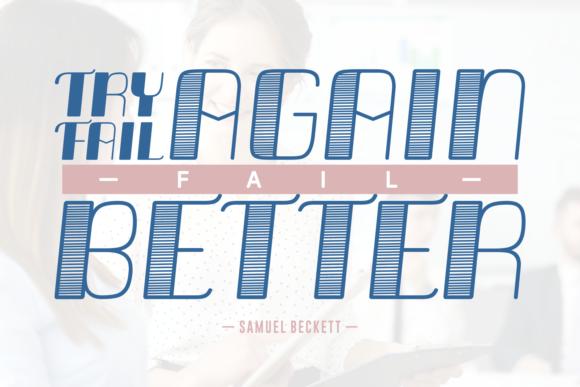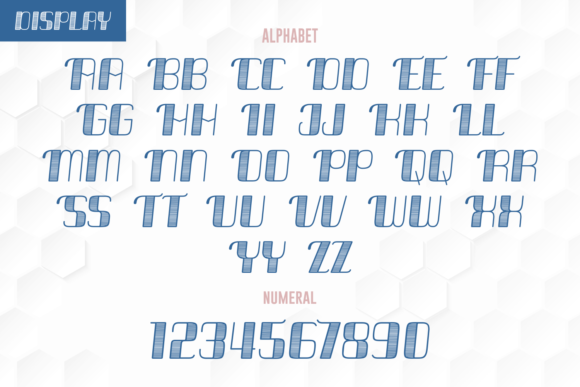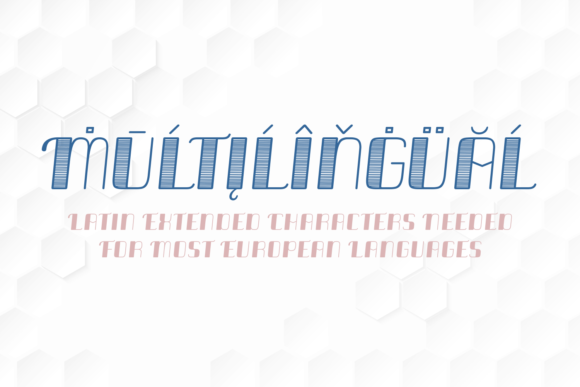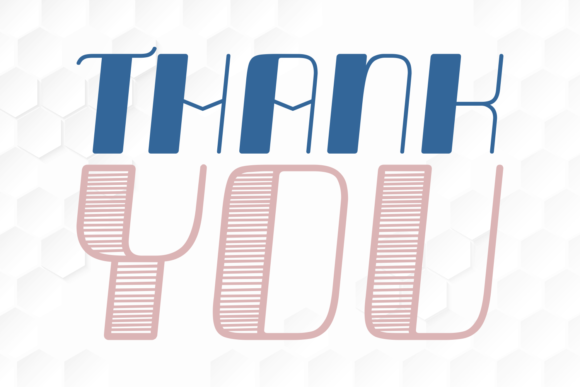
Unlock Your Creative Potential with Achieve Dreams Font
Have you ever found yourself staring at a blank canvas, waiting for inspiration to strike? The blank page syndrome is a familiar foe for many creatives. But what if I told you that the right font can be the spark that sets your imagination ablaze? Introducing Achieve Dreams Font, a modern display font designed to elevate your crafting ideas and take them to new heights.
This versatile font is perfect for adding a touch of sophistication to your projects, from handmade cards and labels to branding and marketing materials. With Achieve Dreams Font, the possibilities are endless. As a designer, you’ll appreciate the flexibility and creative freedom that this font offers, allowing you to push the boundaries of your art and achieve truly remarkable results.
Achieve Dreams Font Key Features
- Font Family: Achieve Dreams Font is a unique, high-quality font designed for various applications.
- Unique Characteristics: The Achieve Dreams Font features a modern, elegant design with a touch of sophistication, making it perfect for branding, marketing materials, and digital media.
Designer Review: Achieve Dreams Font
I’ve had the chance to work with Achieve Dreams Font and here’s my honest take on it.
- It’s great for creating inspirational and motivational content. The font’s unique design and elegant curves make it perfect for headings and titles.
- The font’s high contrast between thick and thin lines gives it a sophisticated and modern look.
- It’s highly legible, even at smaller font sizes, making it suitable for body text and long-form content.
- The font may not be ideal for display on low-resolution screens or in print, as the high contrast may not translate well.
- The font’s uniqueness can be both a blessing and a curse – while it stands out, it may not be suitable for all types of content or audiences.
- The font’s elegance can make it feel a bit overused or clichéd if not used thoughtfully.
While Achieve Dreams Font has its limitations, it’s a solid choice for creating inspirational and motivational content. It’s elegant, legible, and modern, making it a great addition to any designer’s toolkit. However, it’s essential to use it thoughtfully and consider the audience and context before making it the central font in your design.
Use the Achieve Dreams font for:
Creating motivational quotes and posters.
Designing inspirational graphics and social media posts.
Adding a touch of elegance to wedding invitations and stationery.